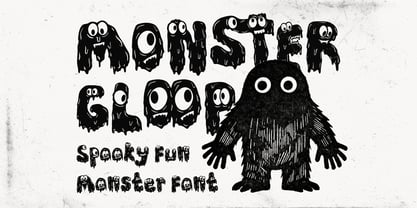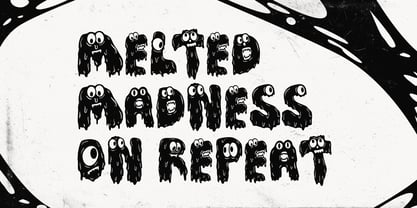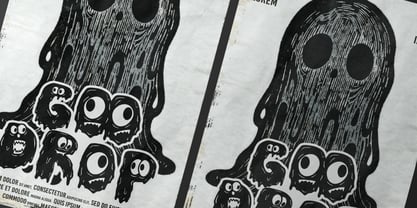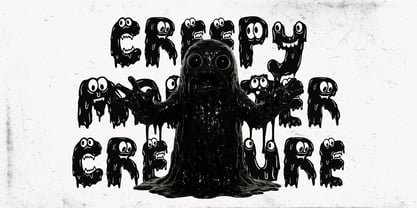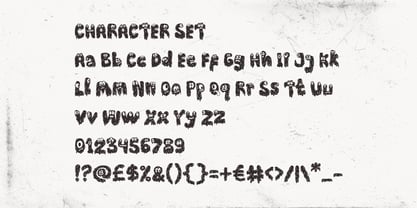
Monster Gloop
La familia tipográfica Monster Gloop fue diseñada por Yesie Erma Yunita y publicada por Shanaf. Monster Gloop contiene 1 estilos. Más información sobre esta familia
Monster Gloop Spooky Fun Monster Font is a display typeface designed with exaggerated, melting letterforms and bold silhouettes. Each character appears soft and organic, with uneven edges that feel fluid and alive. Stroke thickness is heavy and consistent, giving every letter a solid and chunky presence. The height of the characters feels compact, which creates a squat and playful rhythm across words. Counters are irregular and expressive, often shaped like eyes or mouths, adding personality to every glyph. The surface feels textured and imperfect, reinforcing a hand-drawn and creature-like impression. Letter spacing remains balanced, allowing words to stay readable despite the dramatic forms. Uppercase and lowercase characters share the same monster-inspired logic, making mixed text feel cohesive and animated. Numbers and symbols follow the same gooey construction, ensuring visual harmony across all content. Monster Gloop Spooky Fun Monster Font carries a spooky yet fun cartoon style that blends horror elements with humor. The overall mood feels playful, quirky, and imaginative rather than dark or aggressive. This font works best for logos, branding, headlines, posters, packaging, and advertising that target creative or entertainment themes. It also fits titles, movie posters, book covers, magazines, stickers, greeting cards, and craft projects. Monster Gloop Spooky Fun Monster Font helps designs feel lively, character-driven, and memorable. It supports storytelling visuals, playful monster brands, and seasonal concepts with ease. The bold shapes ensure high visibility while keeping a friendly tone. Monster Gloop Spooky Fun Monster Font gives designers a strong typographic voice for projects that need fun, spooky personality without losing clarity.